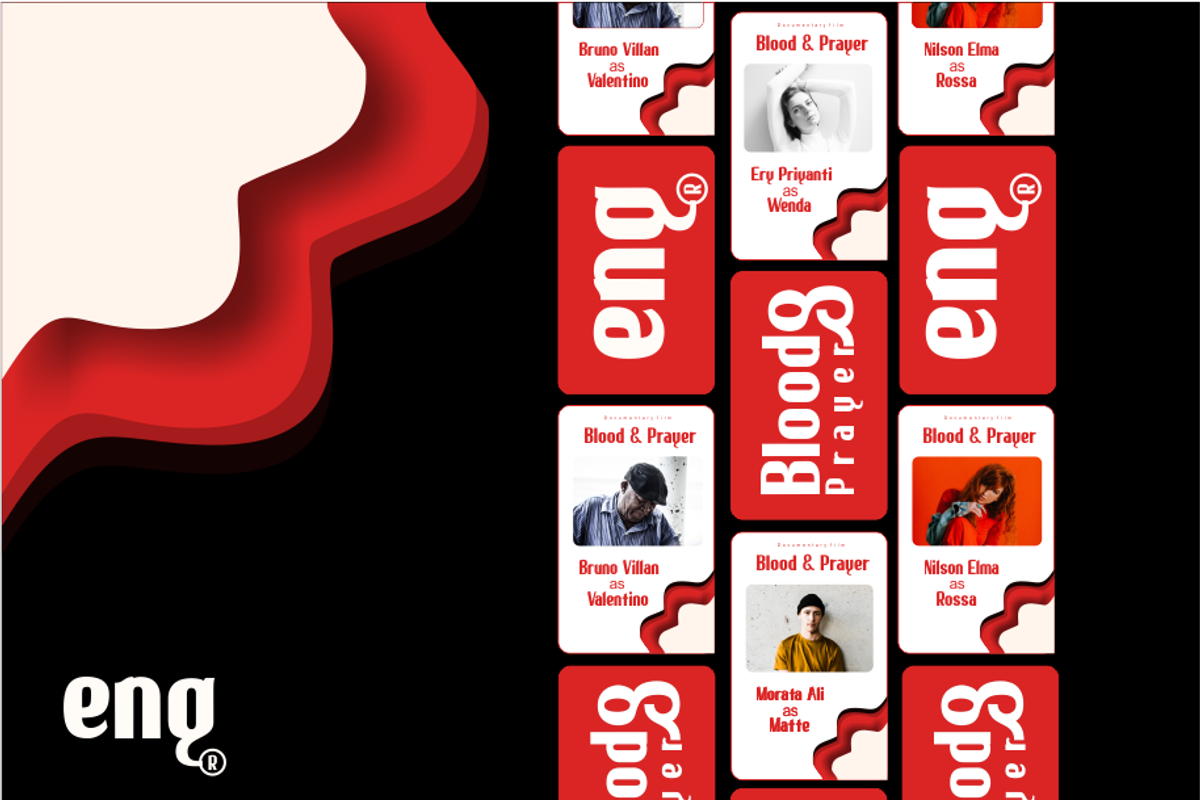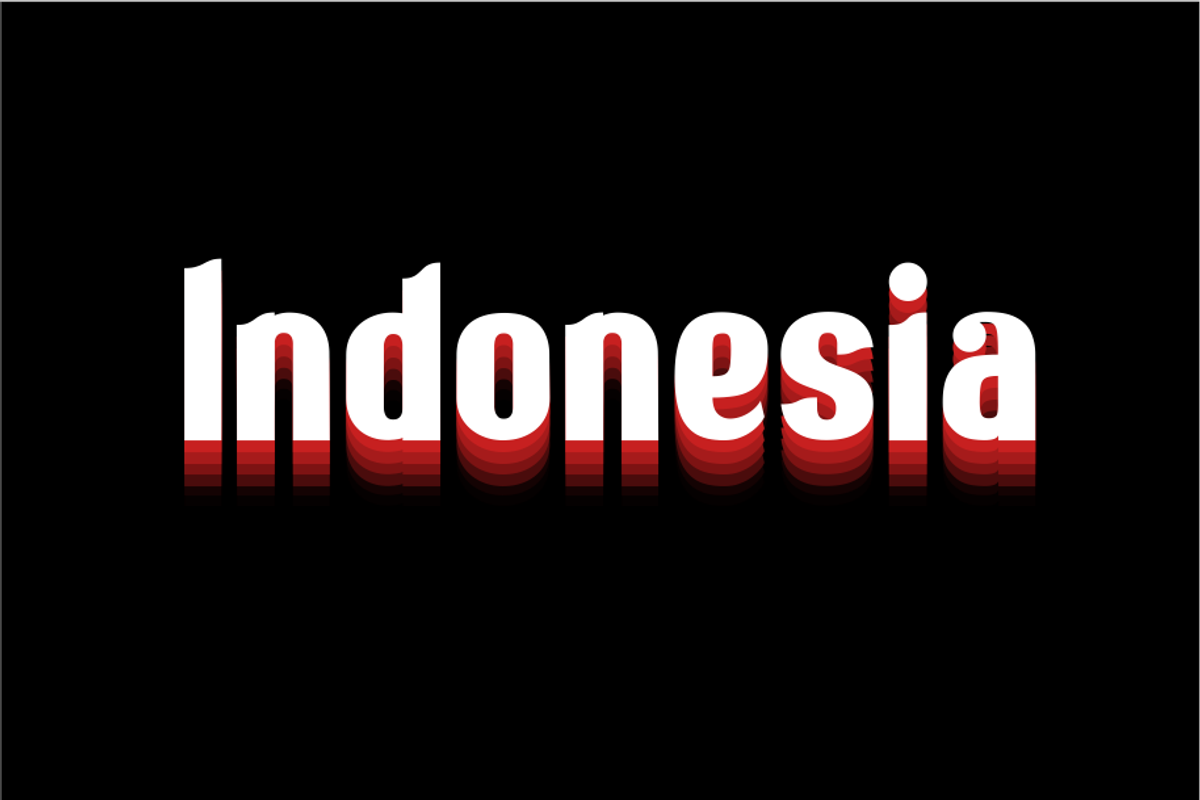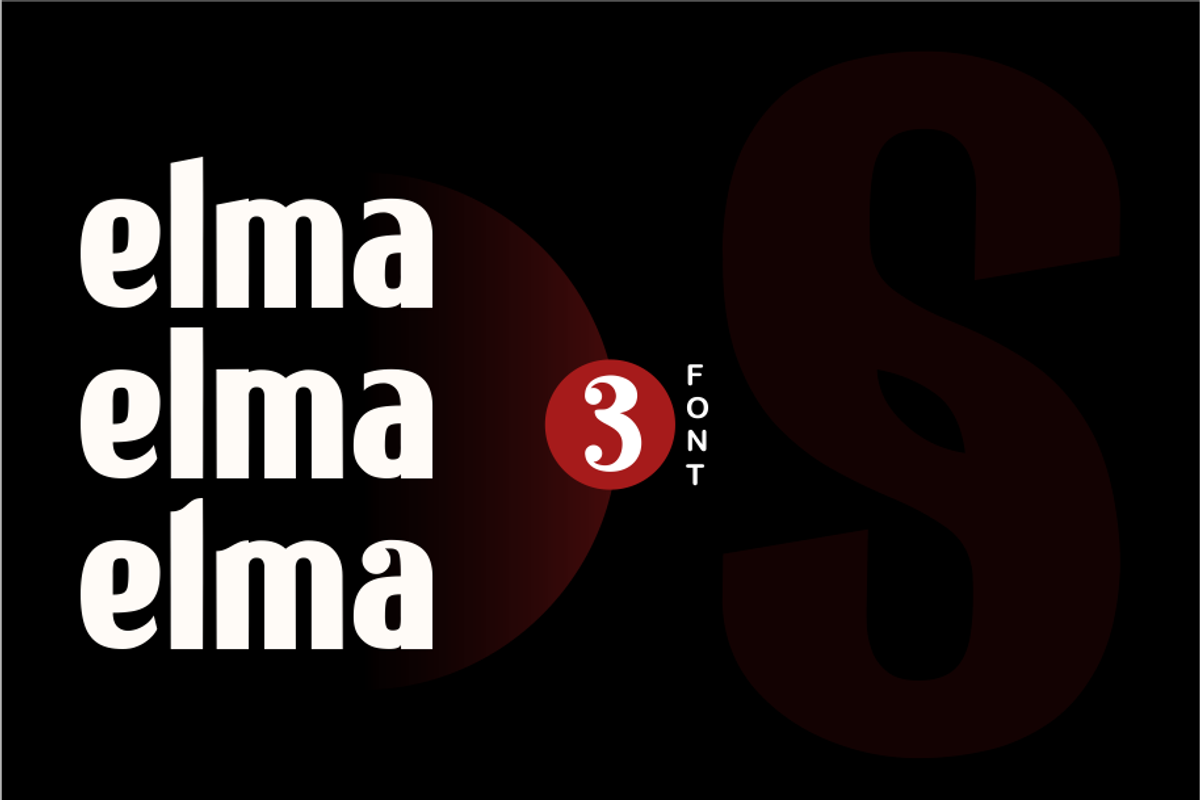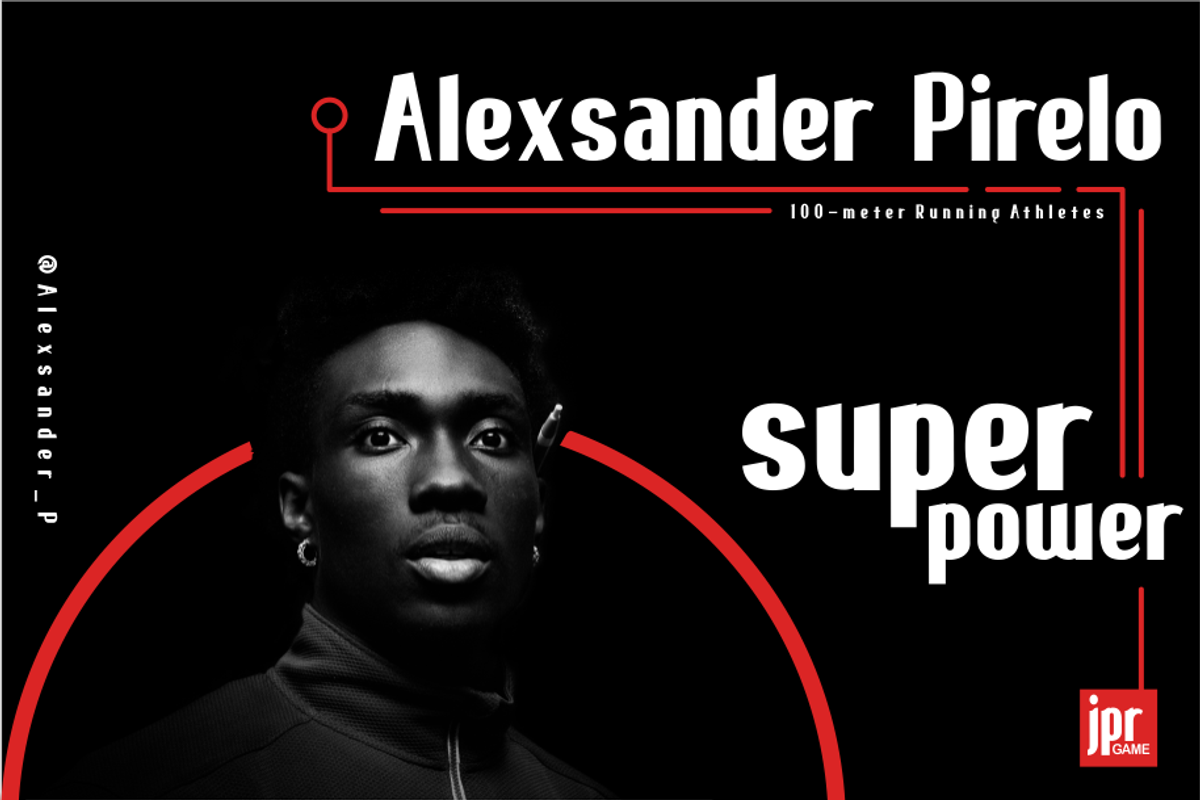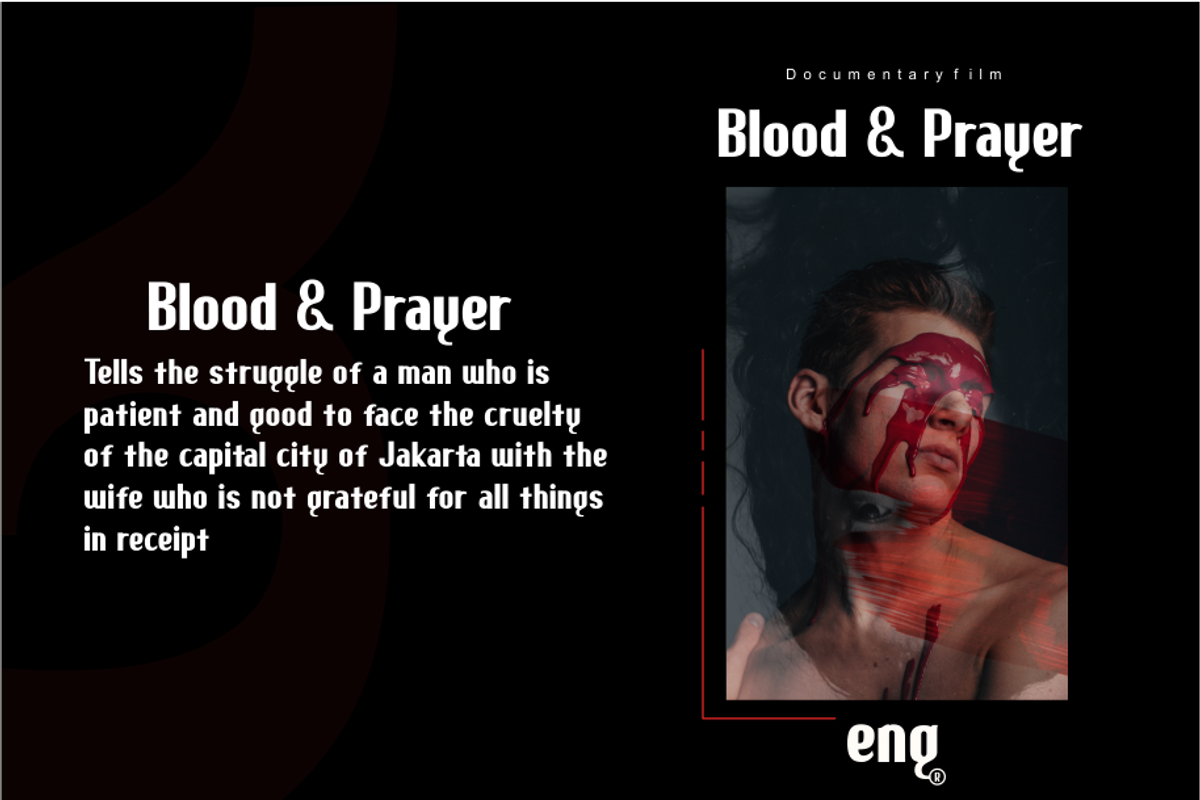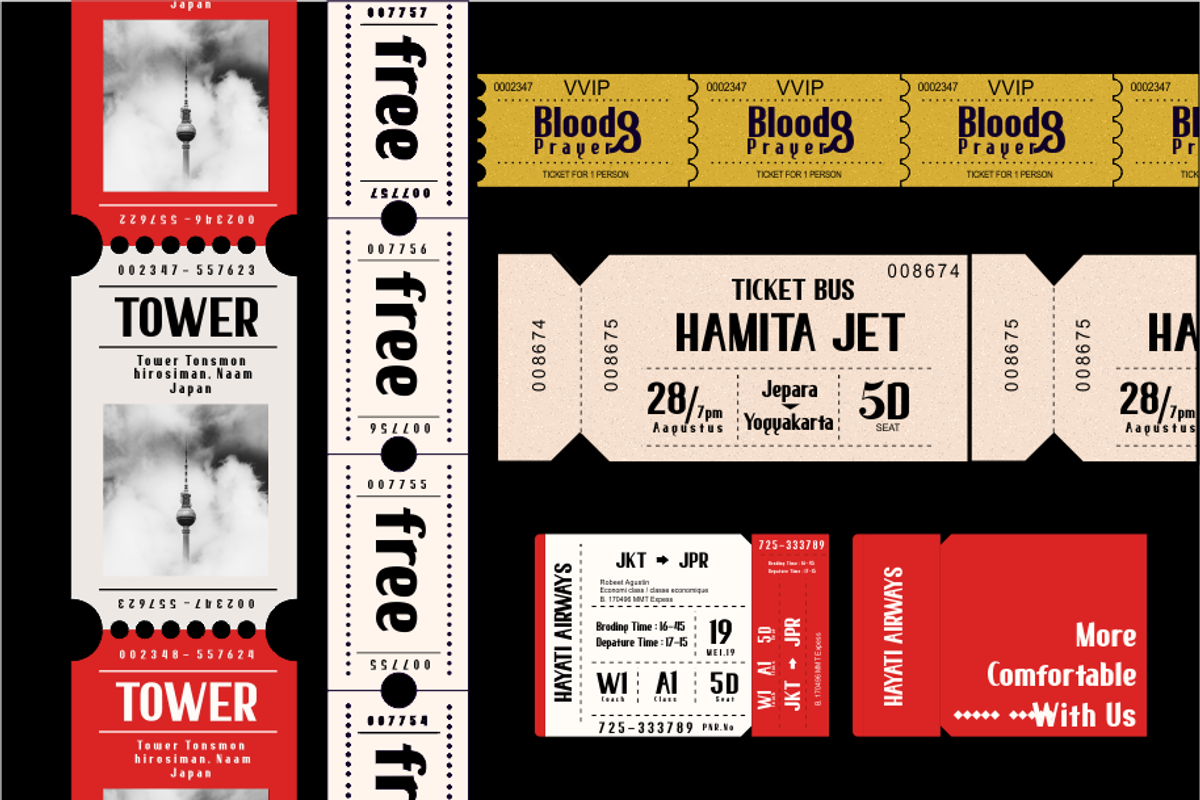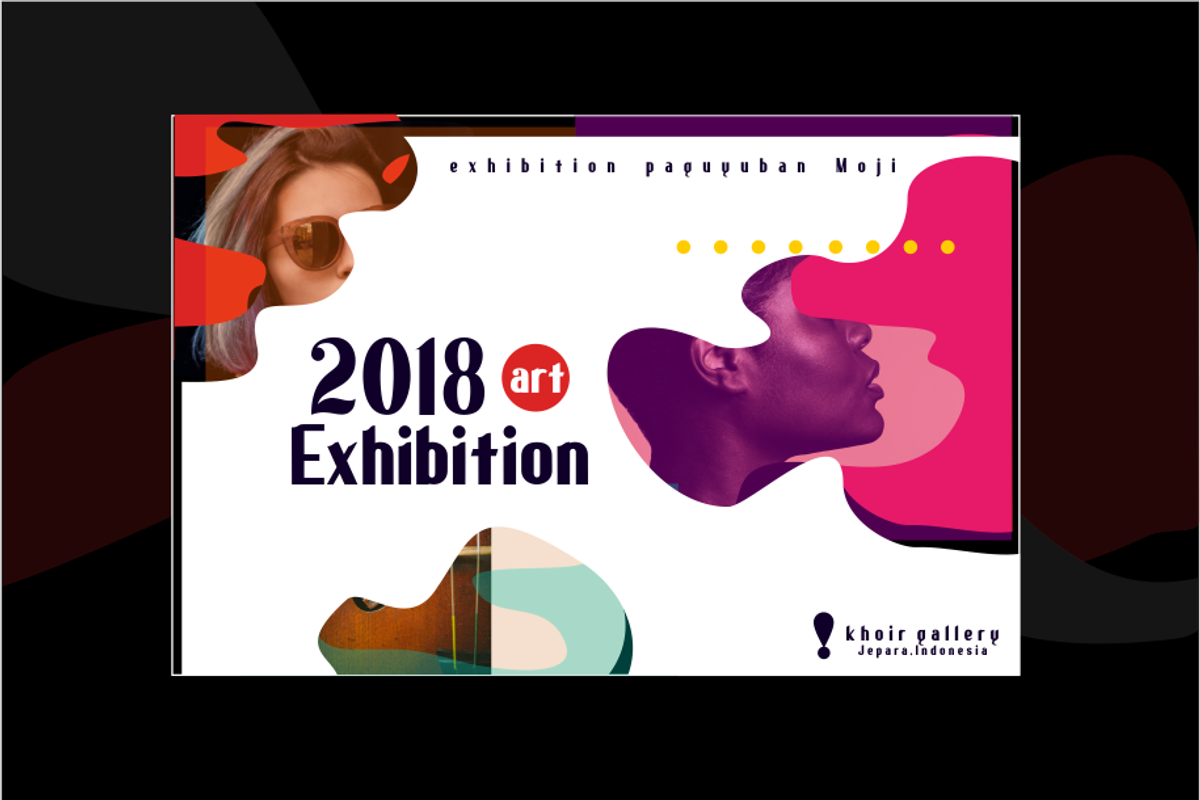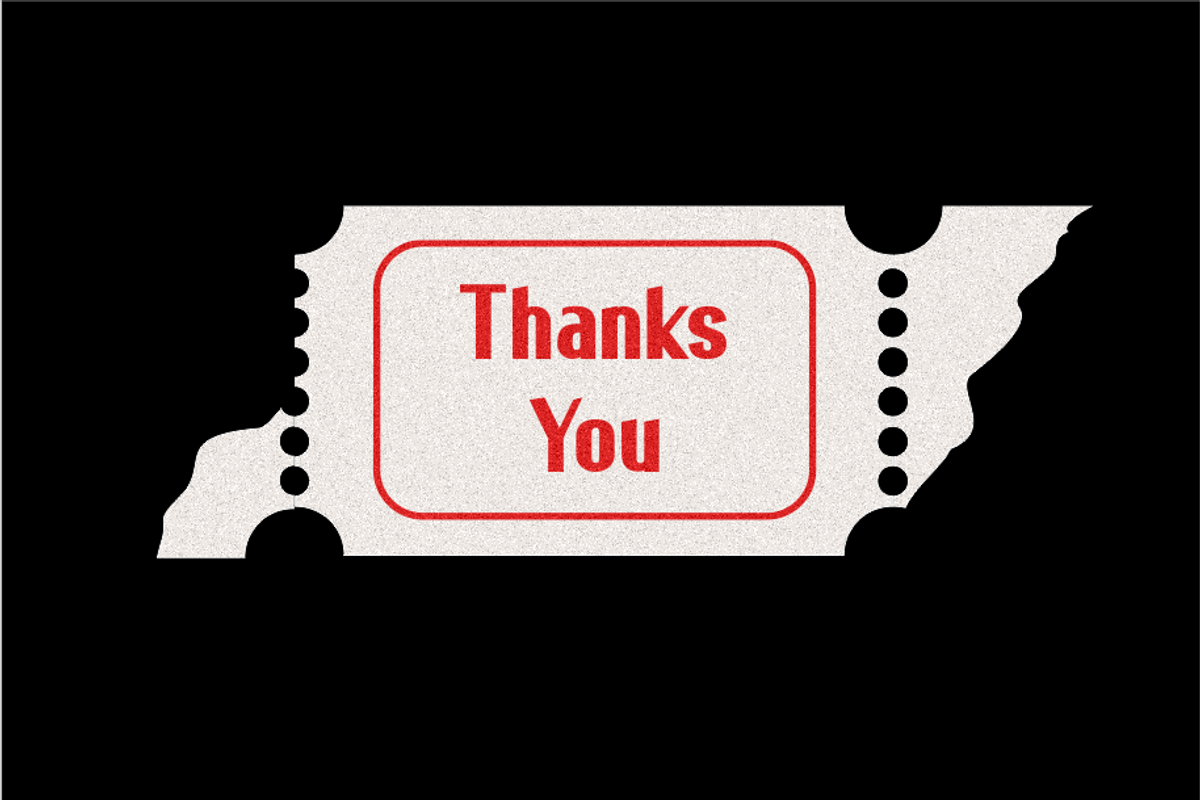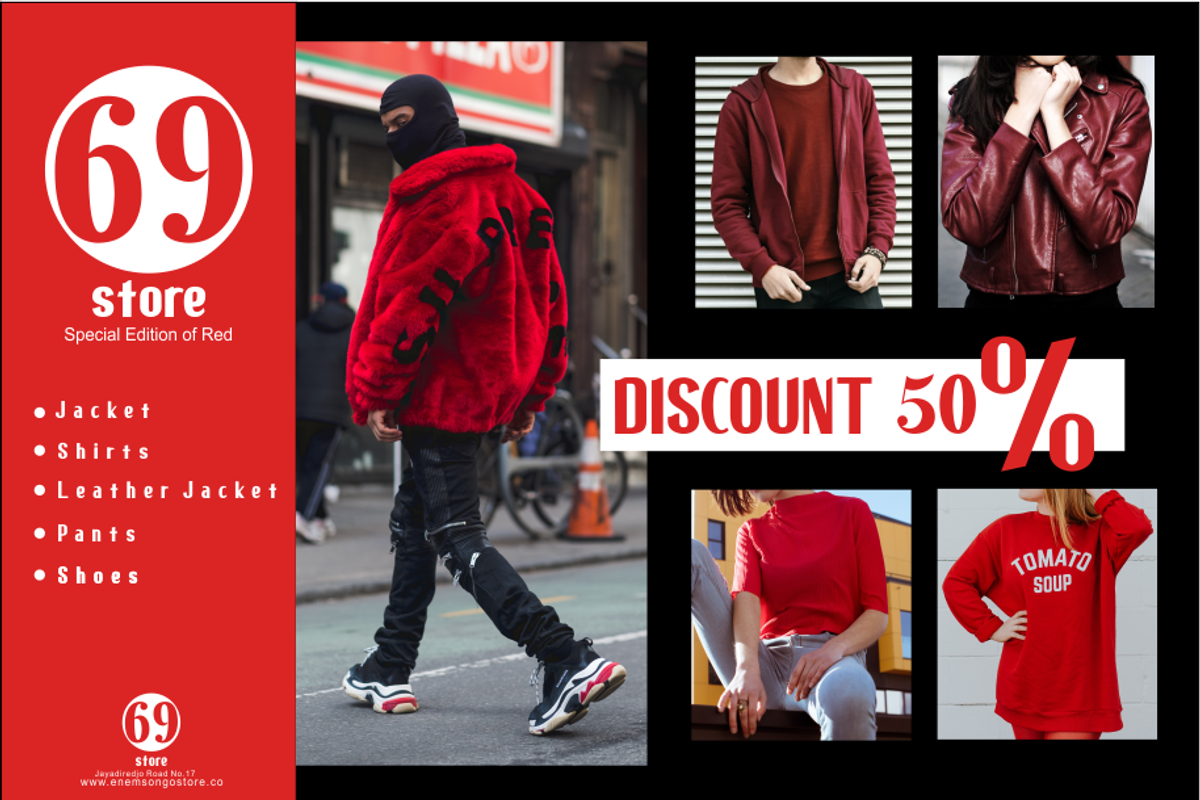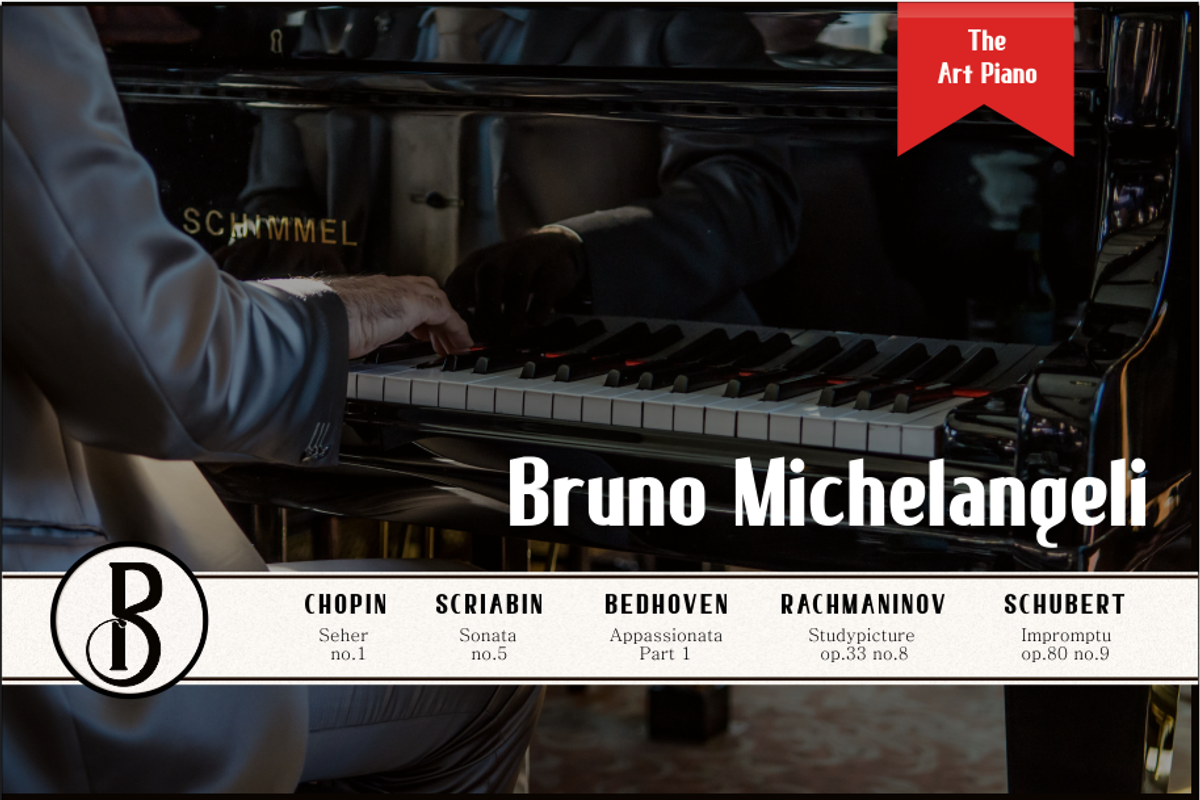
elma
Hello, all Introducing elma elegant fonts without serif, is a modern elegant font, a collection of three fonts and each has its own characteristics, designed to ease you in any case, profile, poster, logotype, movie cover, business cards, tickets, invitations, books and still many more, with your font elma will be simplified in your project